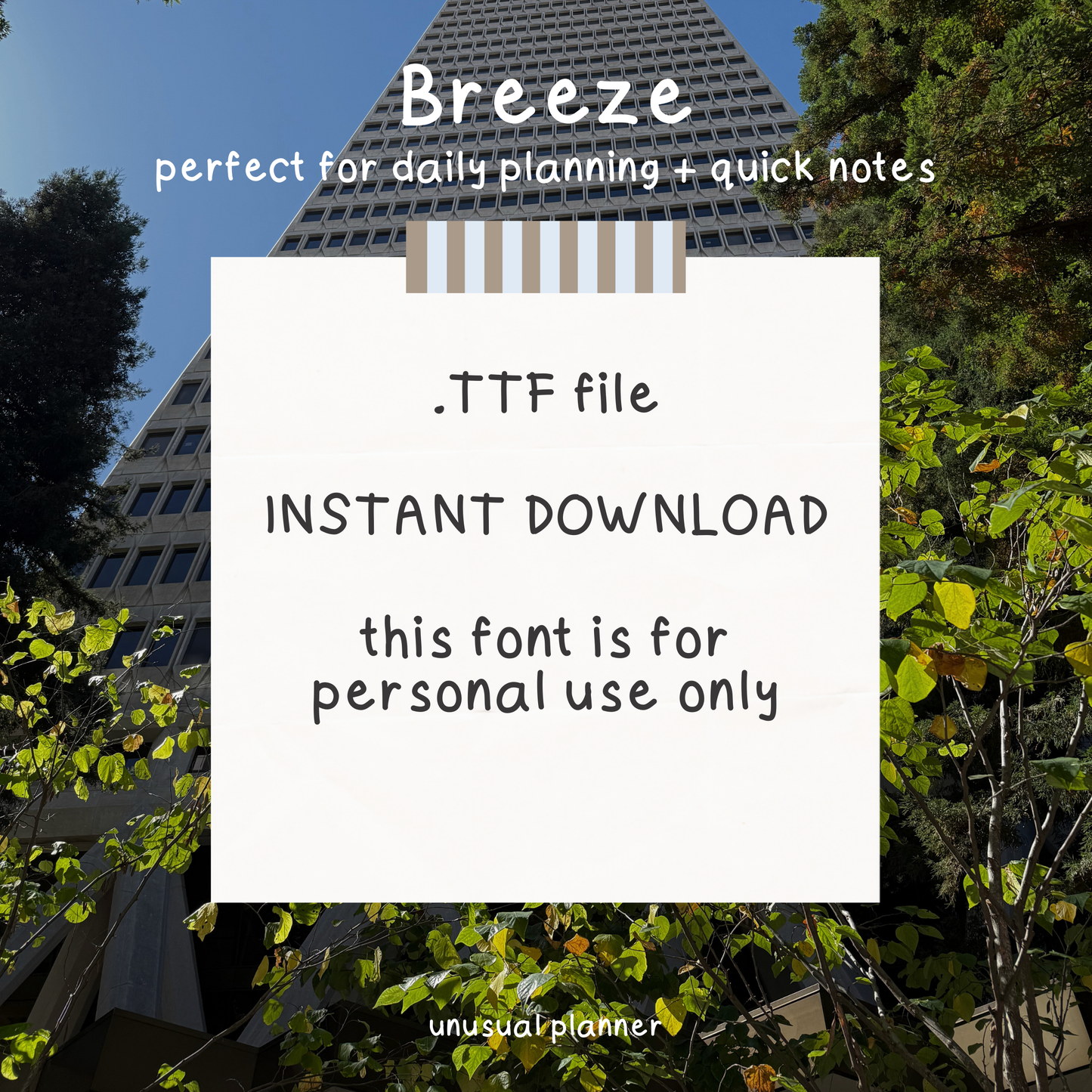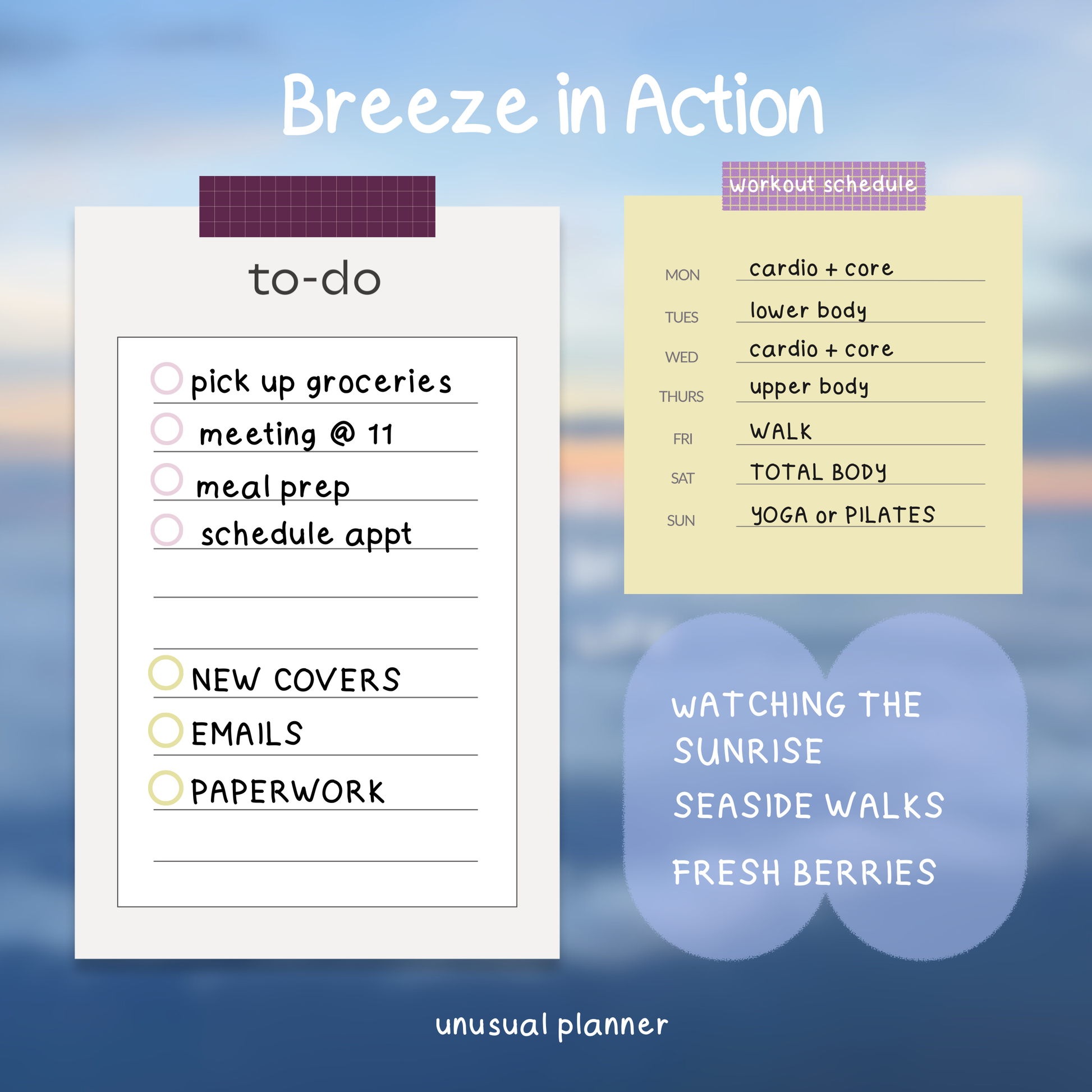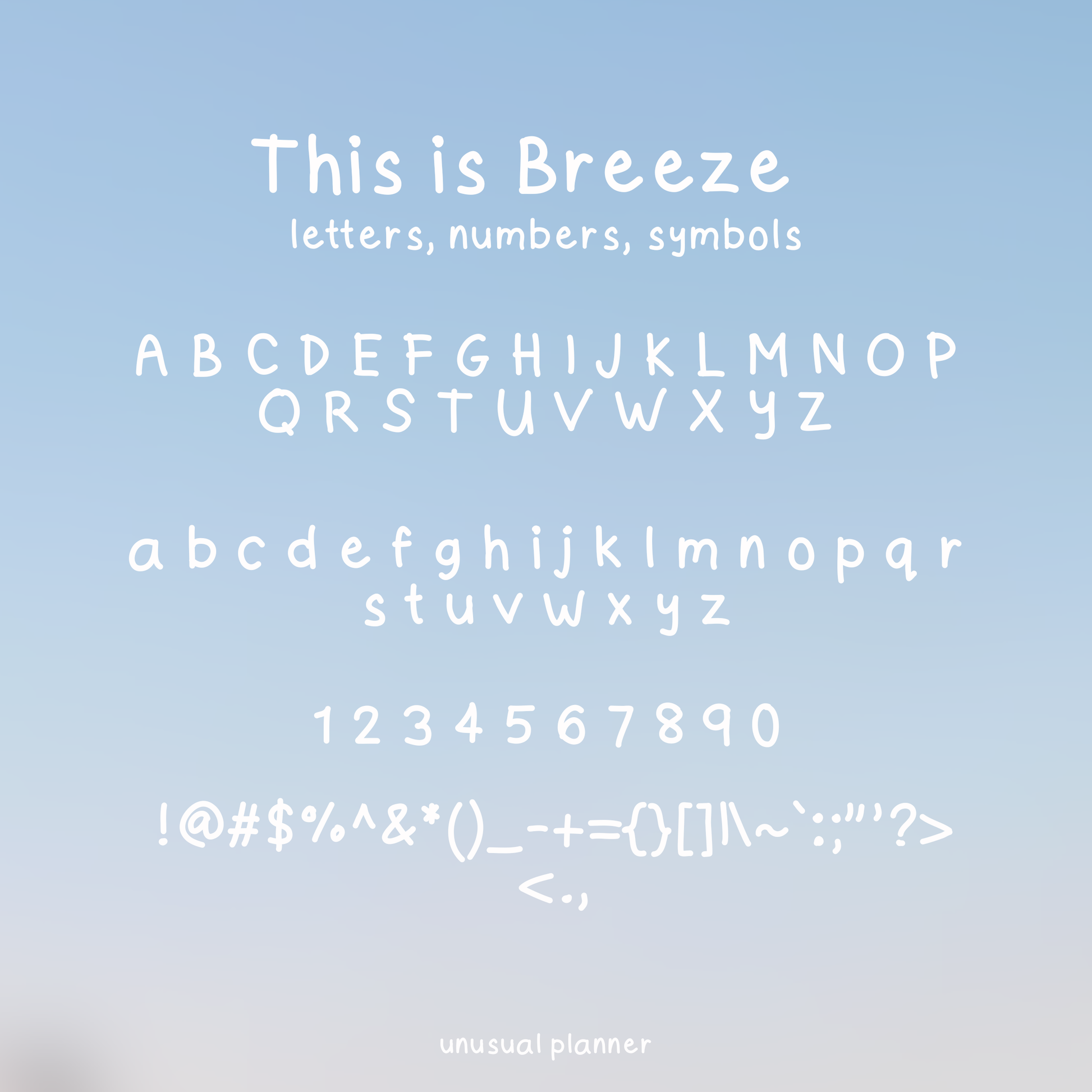
Breeze Handwritten Font
Breeze keeps your pages clear and effortless. Its simple handwritten style is easy to read and works beautifully in digital planners and notebooks. Ideal for daily pages that need structure without losing a sense of calm.
Use it for: daily planning, clean notes, checklists, and habit tracking.
Breeze, a light, clean handwritten font.
Made for digital planning and note-taking. Works seamlessly across most design apps and devices, with a light handwritten style that brings calm and clarity to your pages.